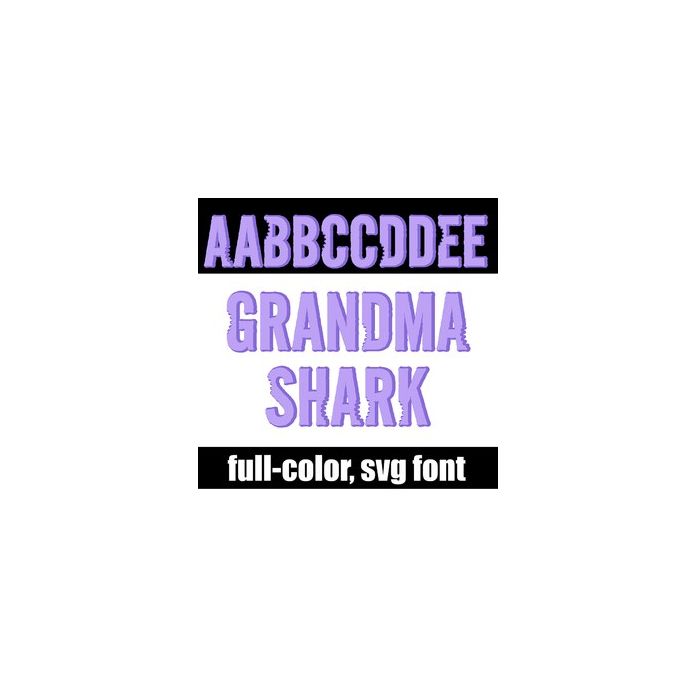
This full-color is a textured sans serif with a shark bite out of each uppercase letter. This font works best for titles, displays, posters and more. Please note color fonts will show as black in non compatible programs. This font type is compatible with Silhouette Studio.